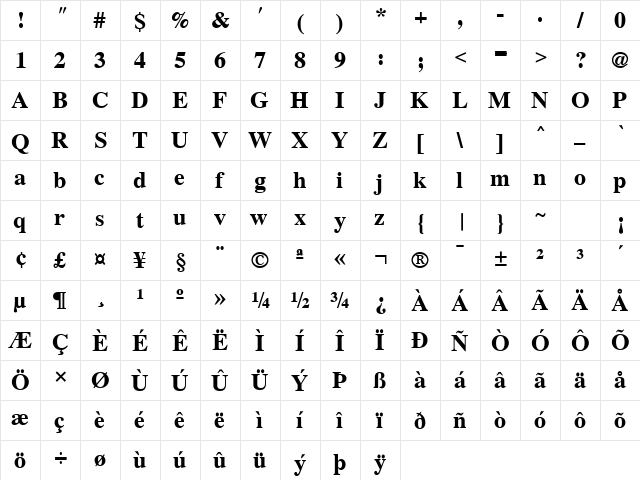
Roman Bold Font Preview
Roman Bold
Roman Bold Font Details
Design Context for Roman Typeface
Roman is a composed and adaptable typeface that performs quietly and consistently across a wide range of design contexts. The heavy weight commands attention and anchors typographic hierarchies.